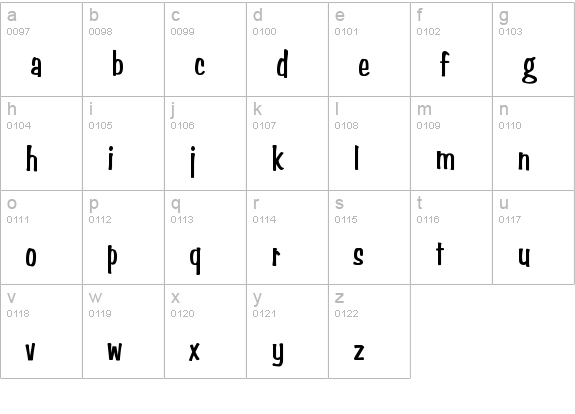
Simpson Condensed Bold is a strong, high-contrast, condensed-width variant in the Simpson typeface family \xE2\x80\x94 well suited to headlines, attention-grabbing titles, and strong calls-to-action.
Simpson Condensed Bold font is a striking display typeface that exudes confidence and power. Its bold and condensed letterforms make it perfect for headlines, titles, and any design project that requires a strong visual impact. This font boasts a unique combination of thick strokes and sharp edges, giving it a modern and contemporary feel. Its condensed nature allows for efficient use of space while maintaining legibility and readability. Simpson Condensed Bold font is a versatile typeface that can be used across various design applications, from print materials to digital platforms. Whether you're designing a poster, logo, or website, this font will make your text stand out and grab attention. The best part is that Simpson Condensed Bold font is freely available to download at FontsMarket.com. You can easily access and use this font for your personal or commercial projects without any restrictions. So, if you're looking for a bold and impactful font that will make a lasting impression, look no further than Simpson Condensed Bold. Download it today and take your designs to the next level.